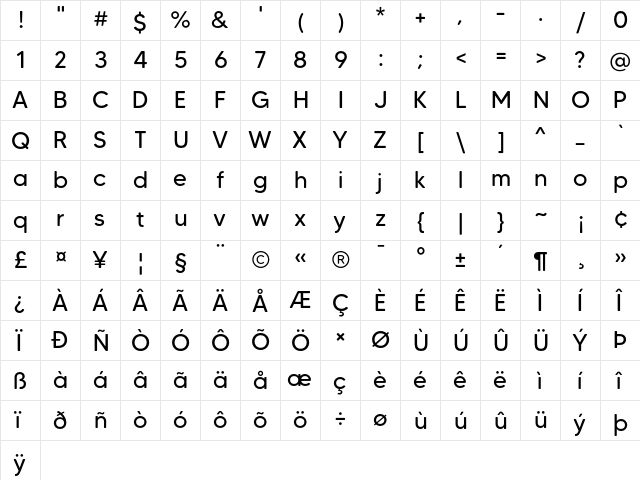
MADE Tommy Soft Regular
| Foundry | MadeType |
| Designer | MadeType |
Design Context for MADE Tommy Soft Typeface
MADE Tommy Soft takes a measured approach to typography — its balanced proportions and neutral character make it a reliable workhorse for both digital and print work.